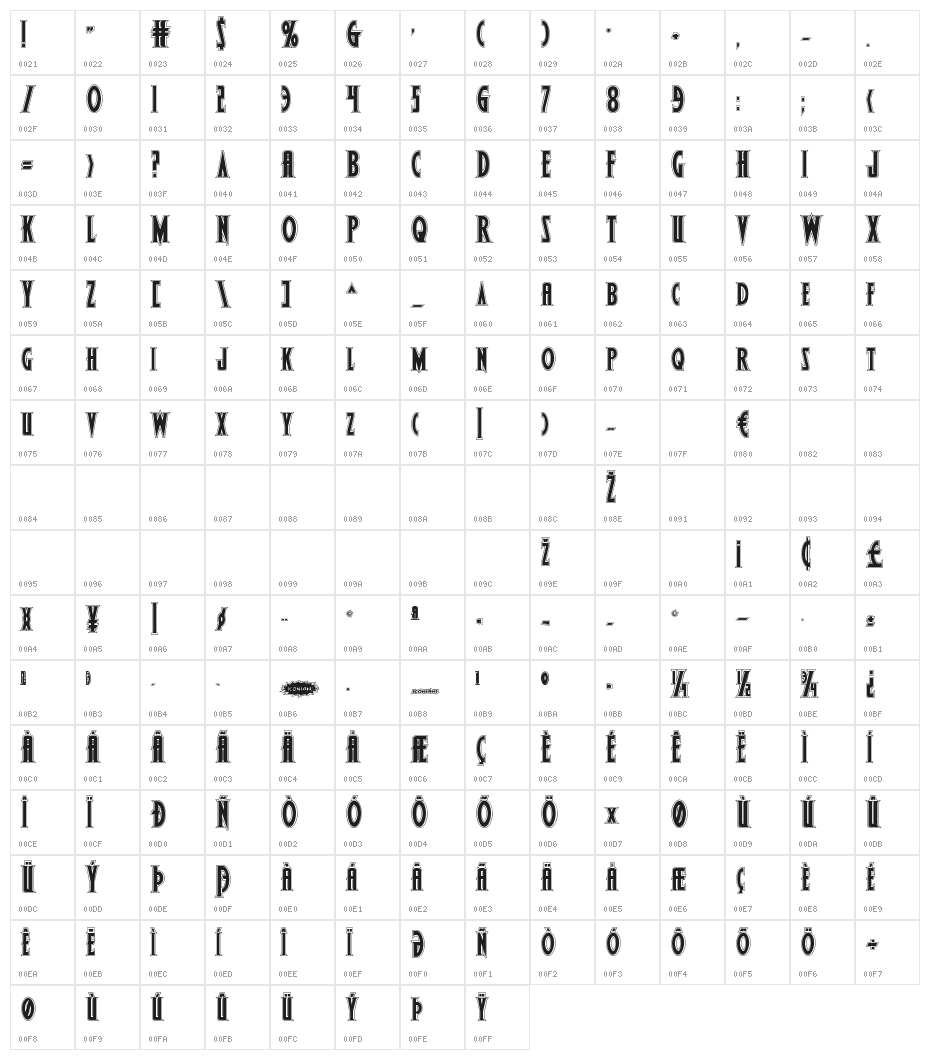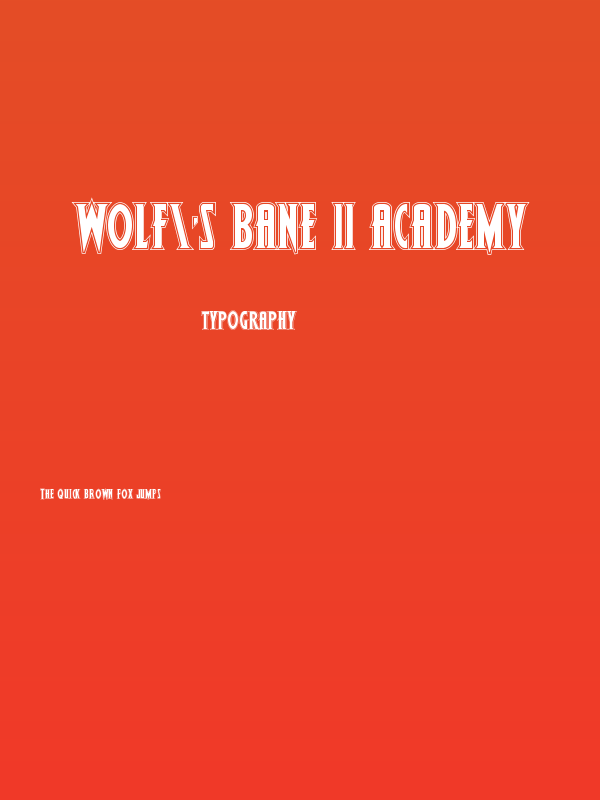
Wolf's Bane II Academy Font
Wolf's Bane II Academy Description
This font features a bold and impactful design with a strong presence, characterized by its thick, angular strokes and sharp serifs. The letters are outlined, adding a three-dimensional effect that enhances its dramatic appearance. The uppercase and lowercase letters maintain a consistent style, with the numerals and special characters following suit. The font's unique style is reminiscent of vintage or retro themes, making it suitable for projects that require a bold statement. Its distinct appearance is ideal for capturing attention and conveying a sense of strength and authority.